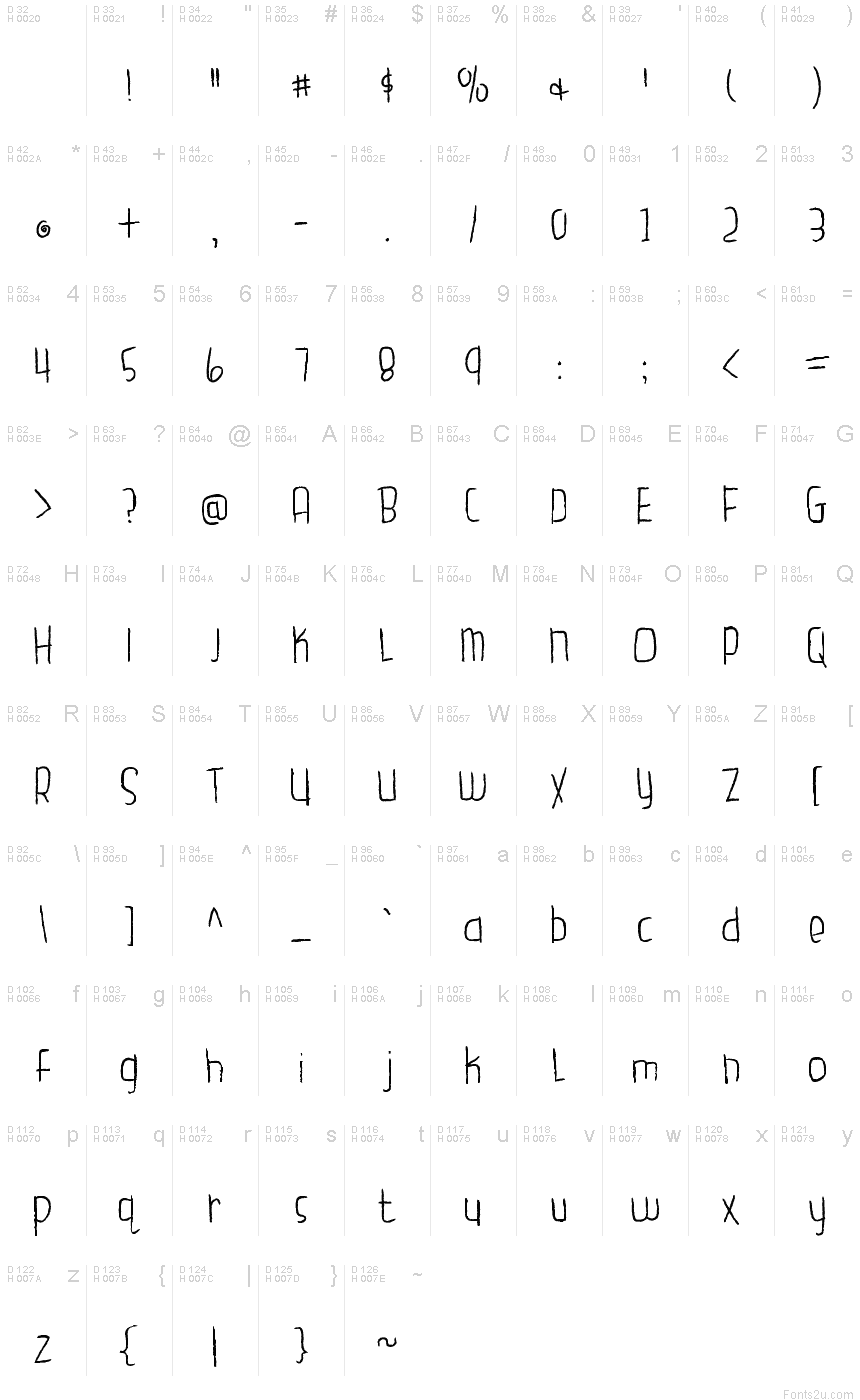
Garden Fresh Tomatoes by Brittney Murphy is a free handwritten font with tall, loosely drawn letters and an unmistakably homemade edge. Wavering strokes and pinched curves keep the shapes agreeably uneven.
It can turn a food label or market sign into part of the product's handmade story, especially for produce, preserves, and casual cafe goods. Posters and recipe cards aimed at home cooks, community gardeners, and farmers' market shoppers are a natural match for its lanky letters and cheerful irregularity.